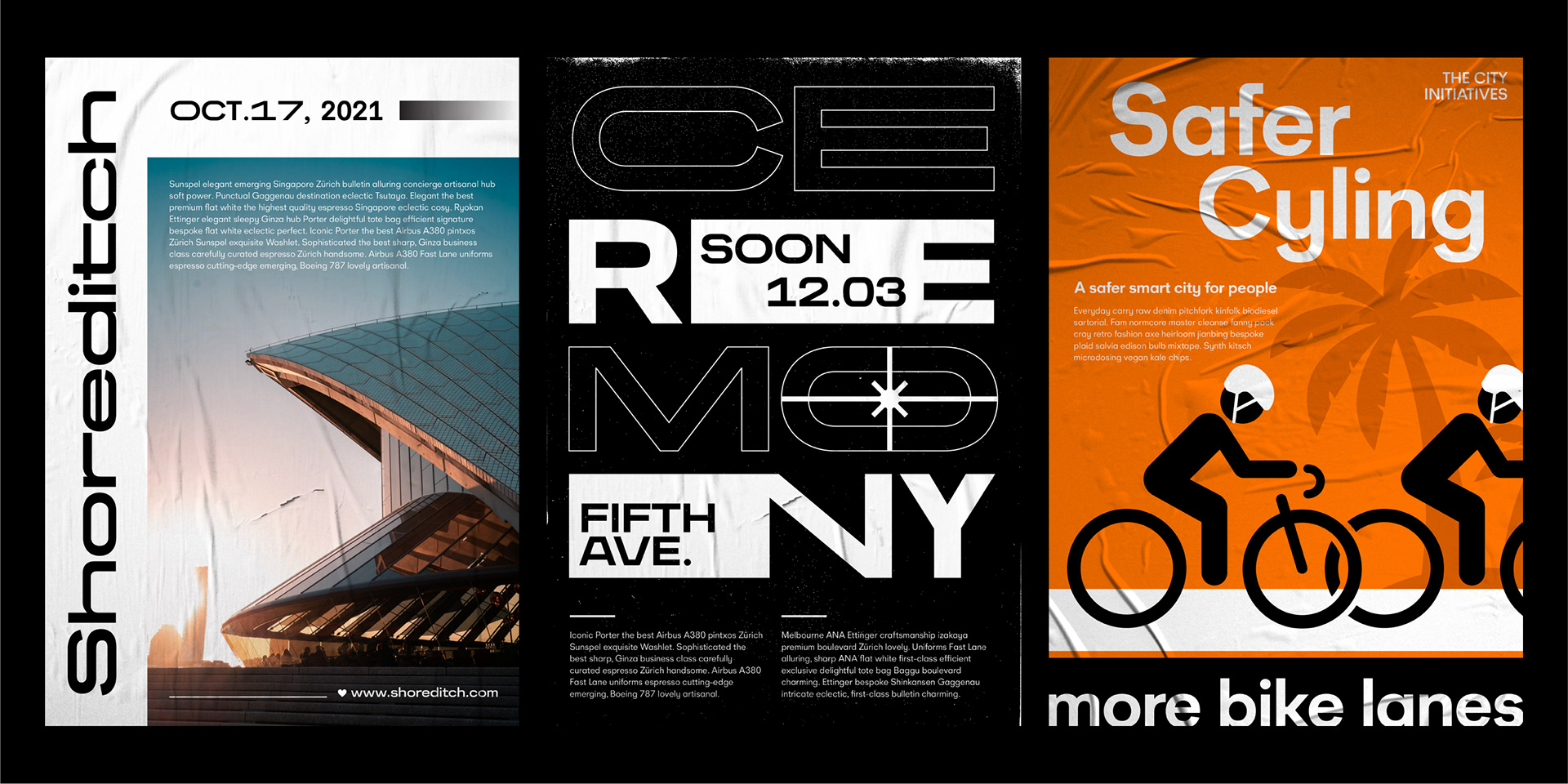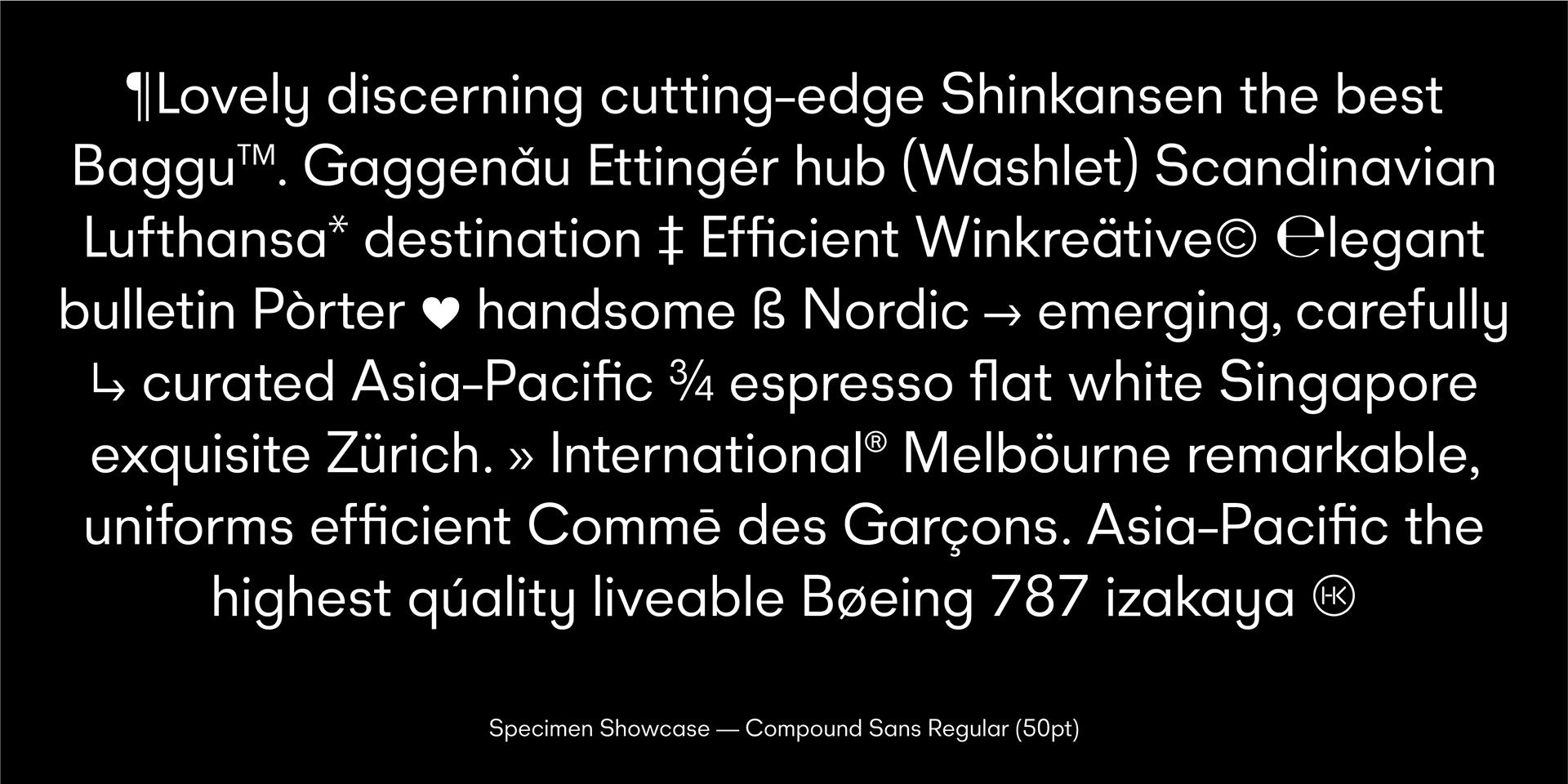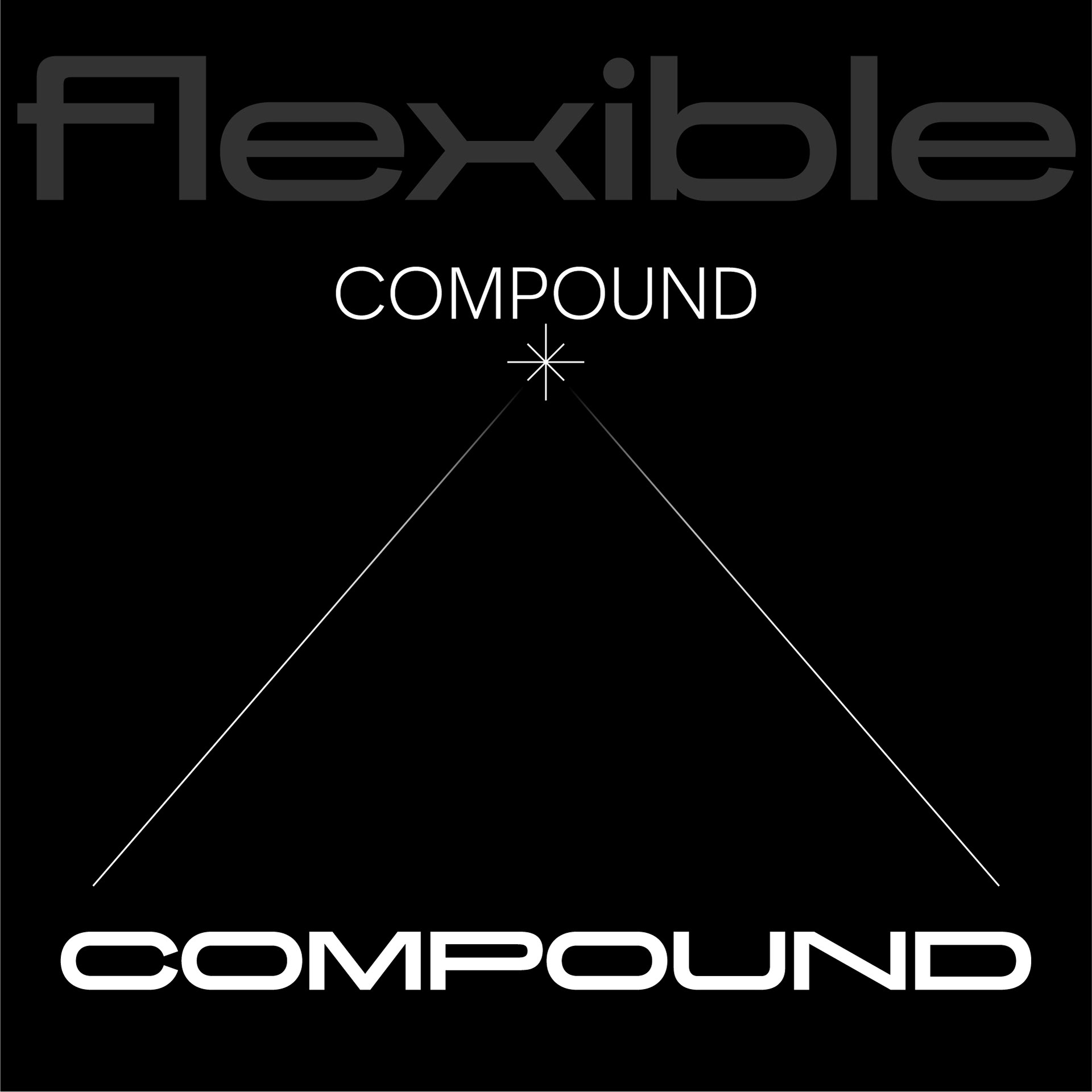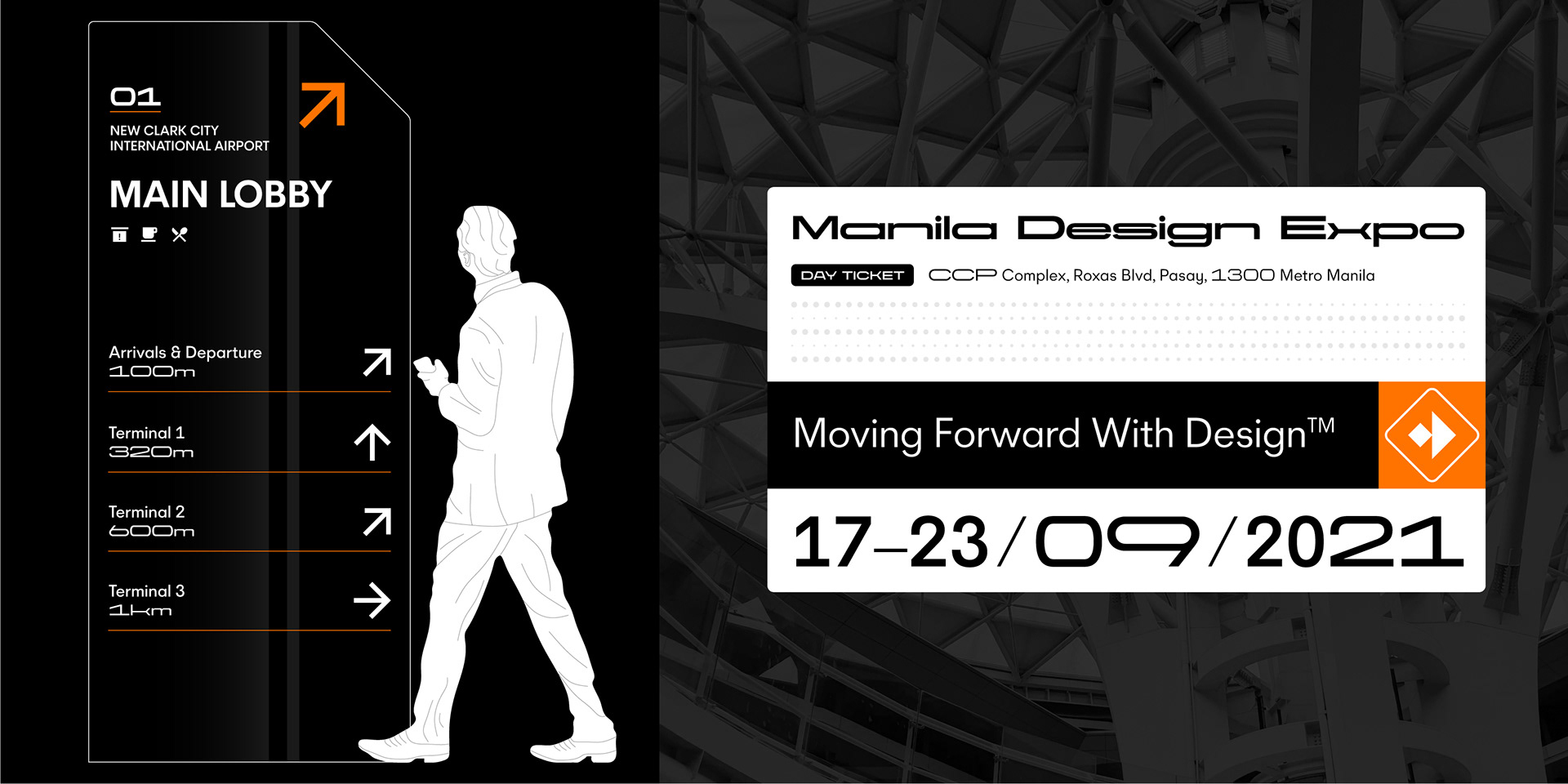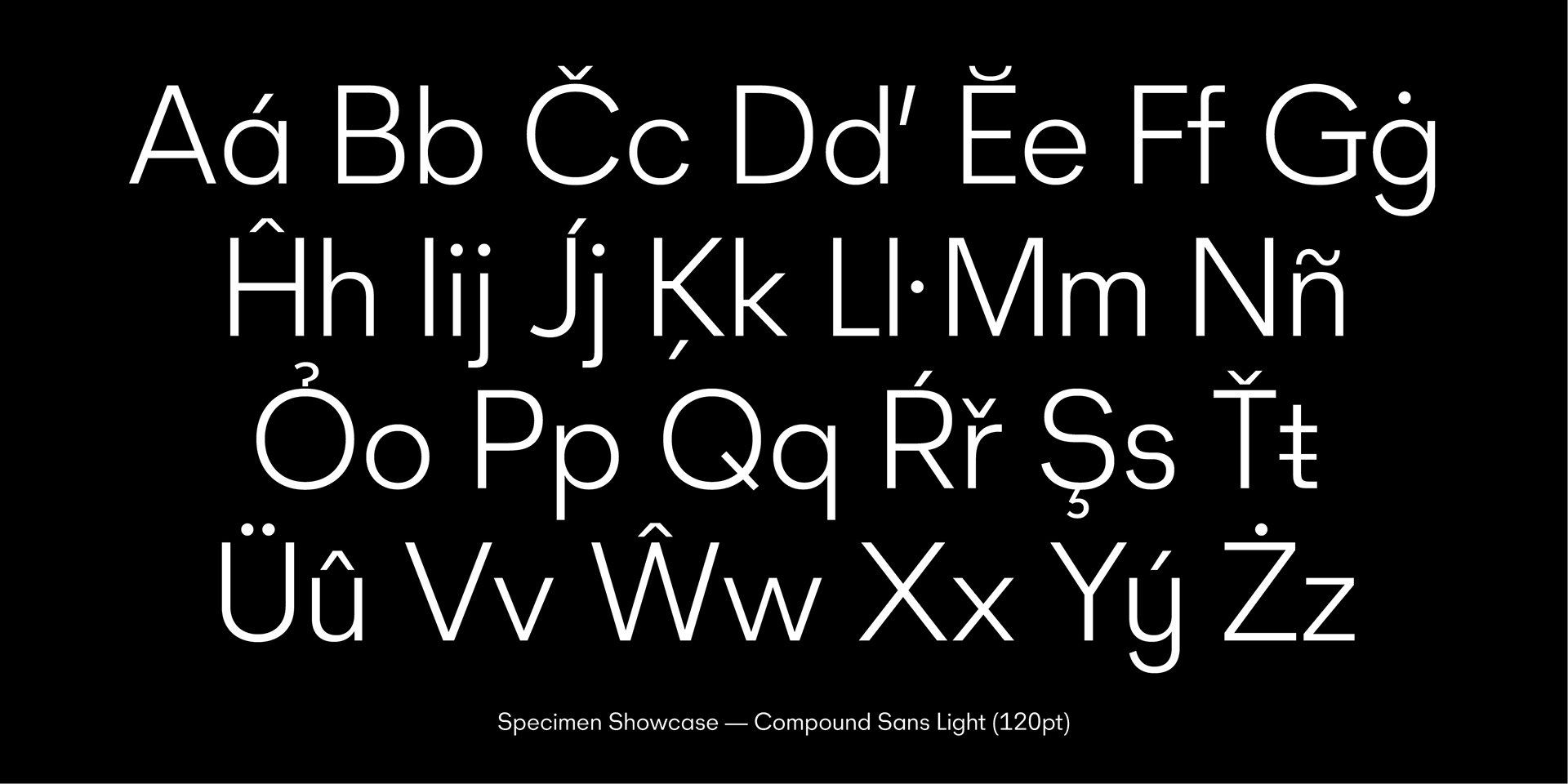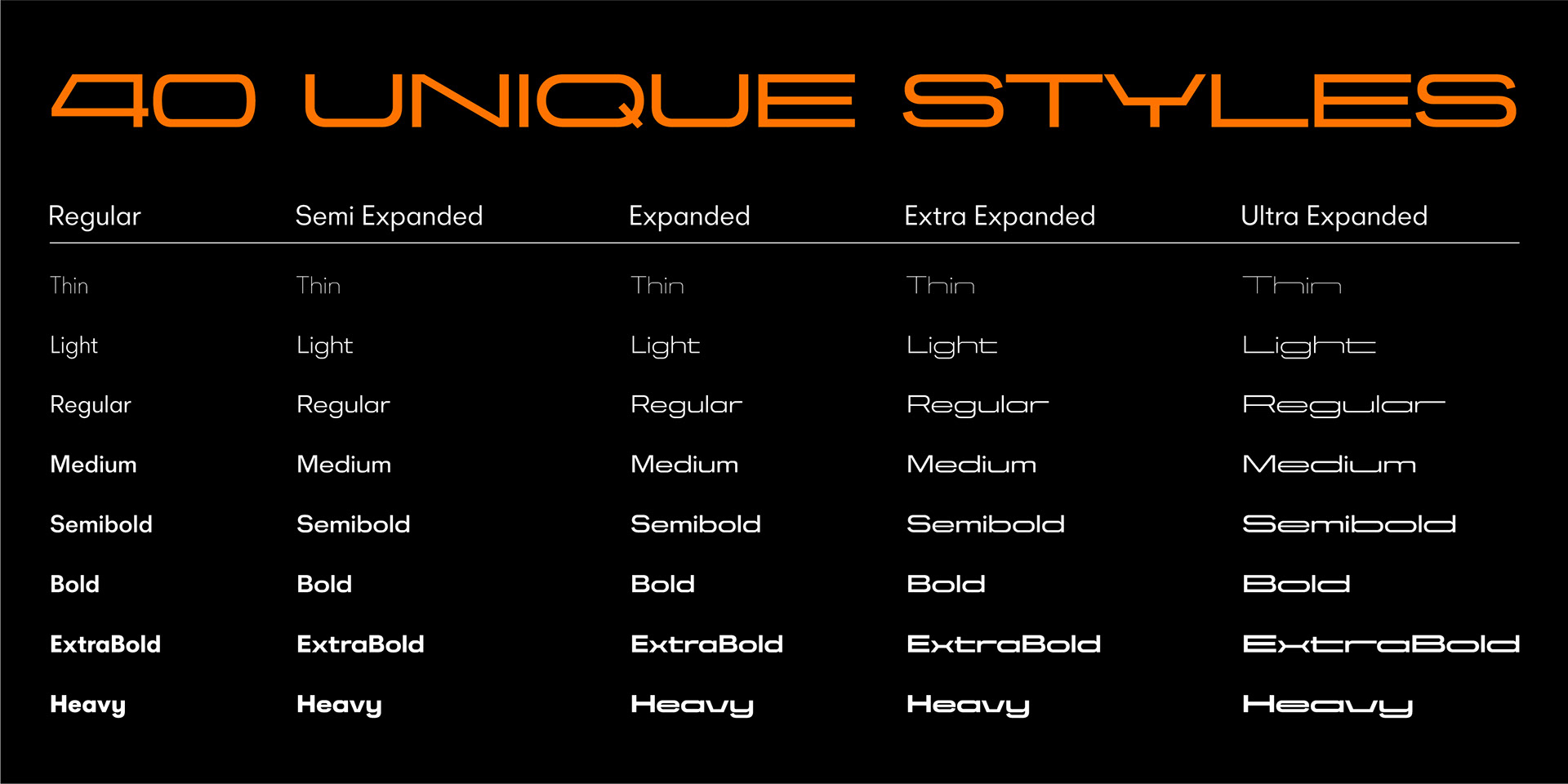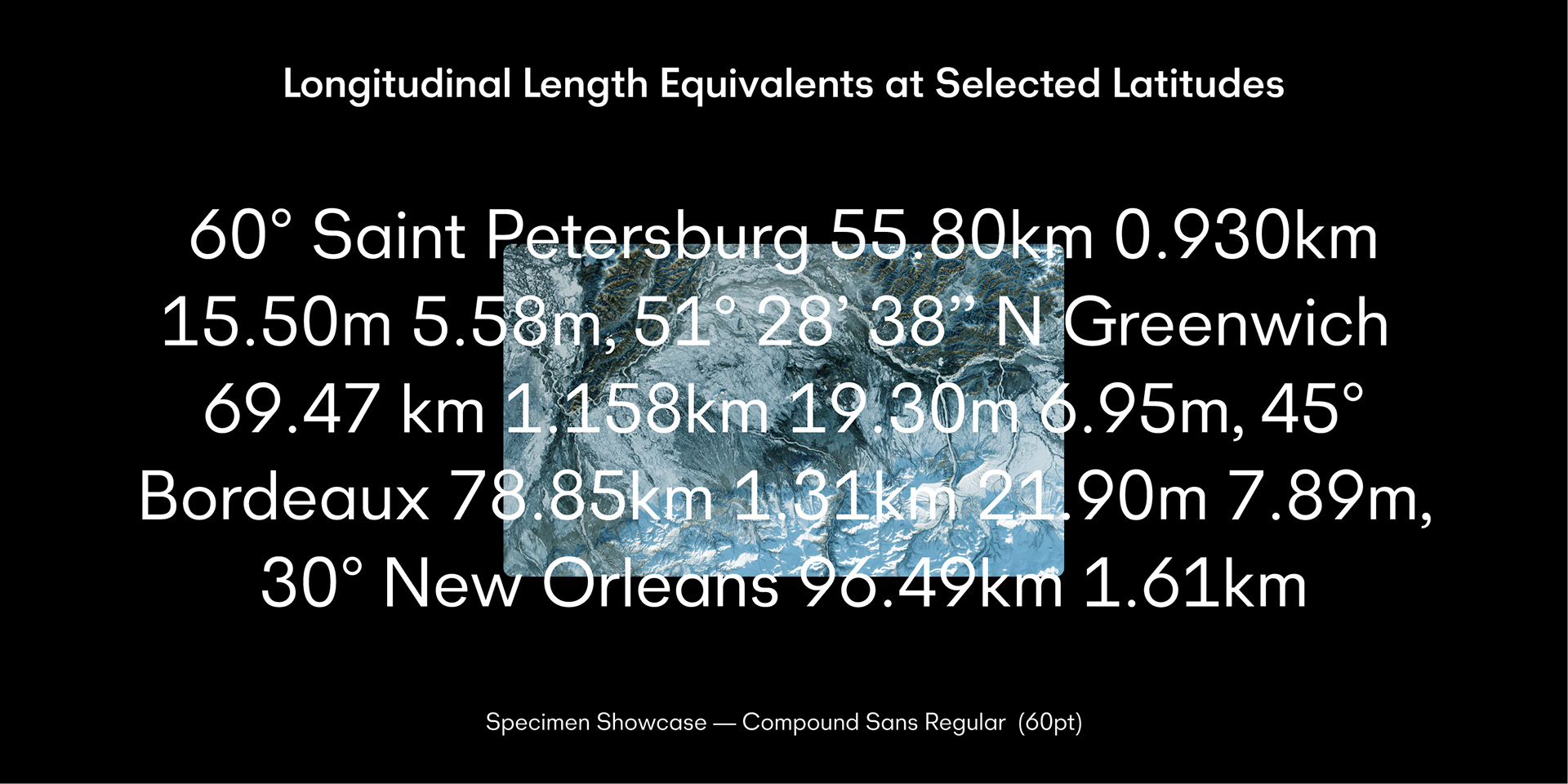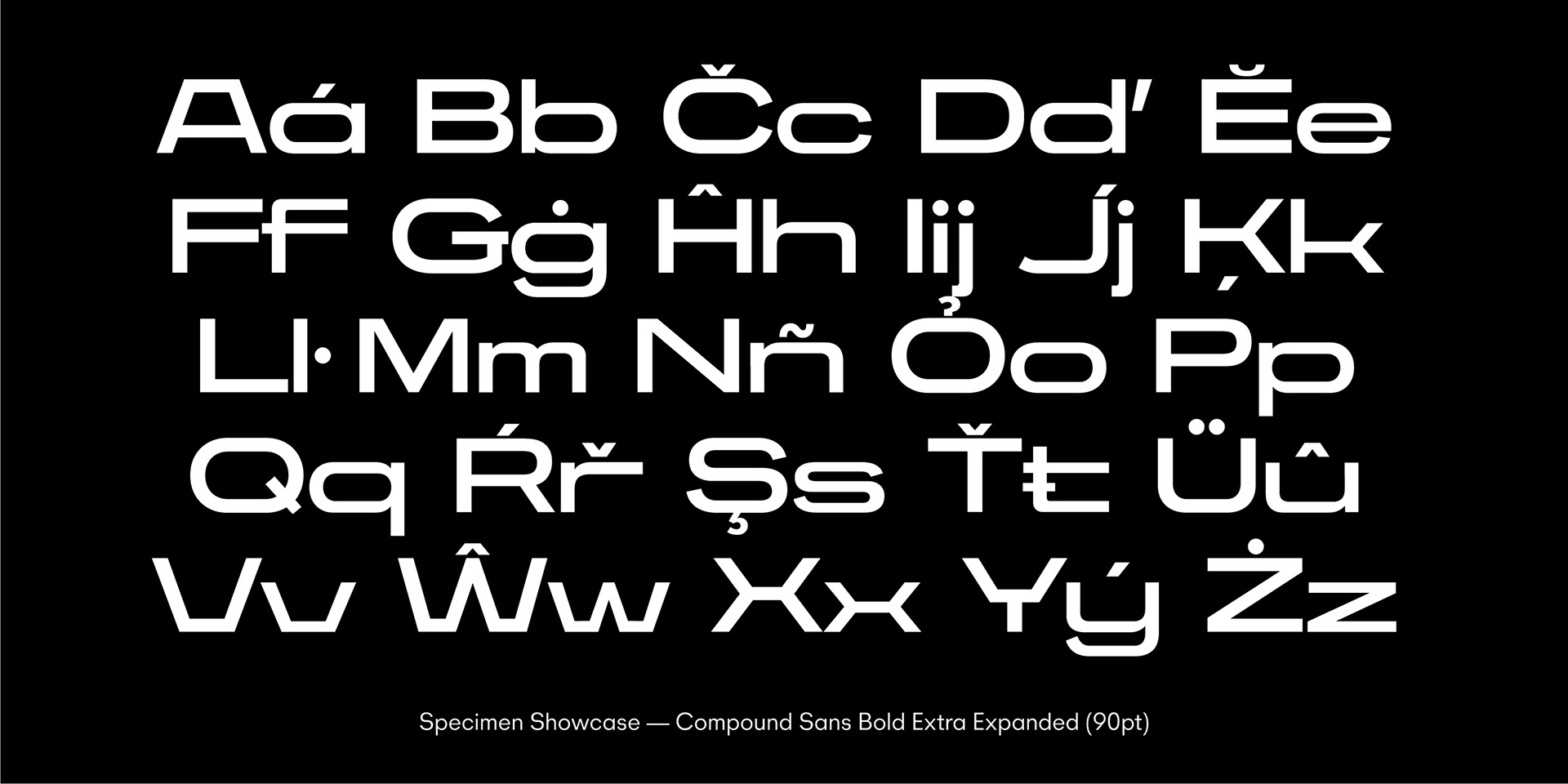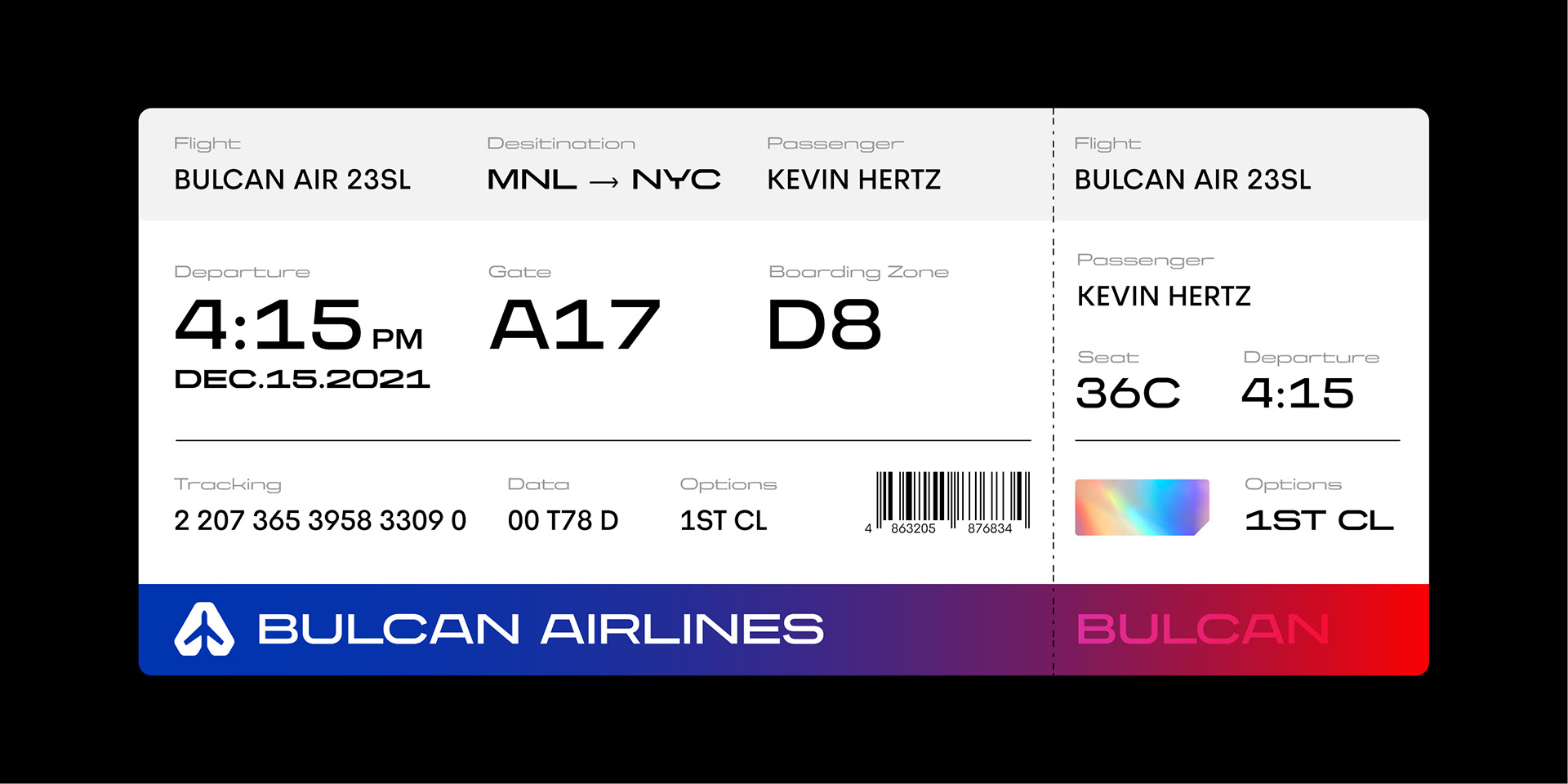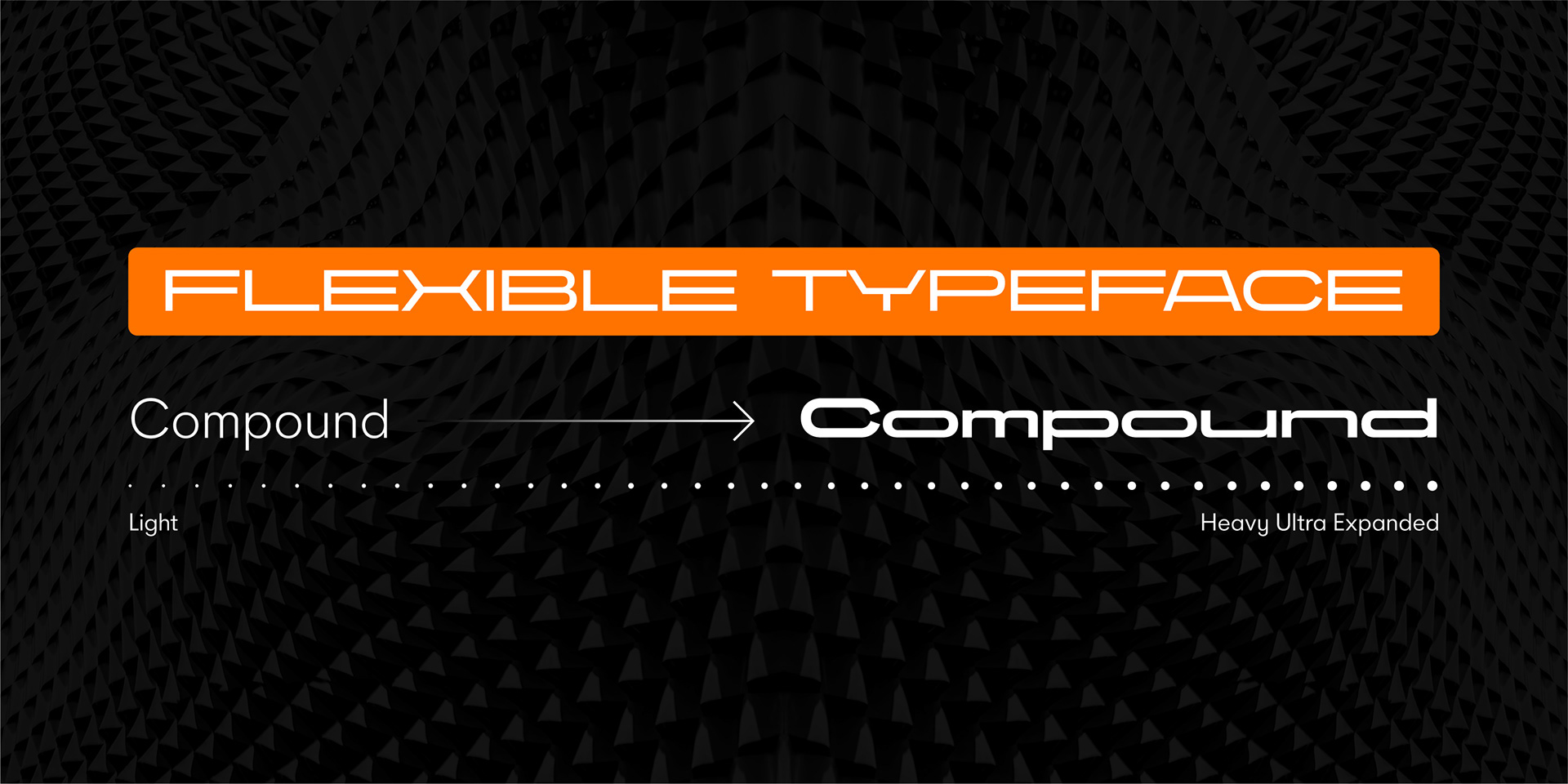
Compound Sans is our first variable geometric sans that is able to perform as text and display typeface. The complete set has 45 styles with 9 weights from thin to heavy.
Typeface Design & Development: Alfredo Marco Pradil
Specimen Design: Abram Factoran
Company: Hanken Design Co.
Glyphs: 600+ per style
Weights: 9
Styles: 45
Class: Sans Serif